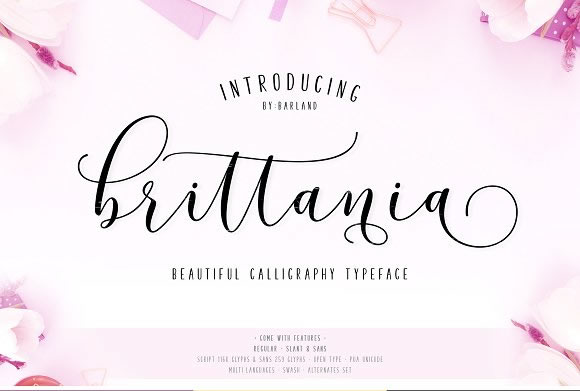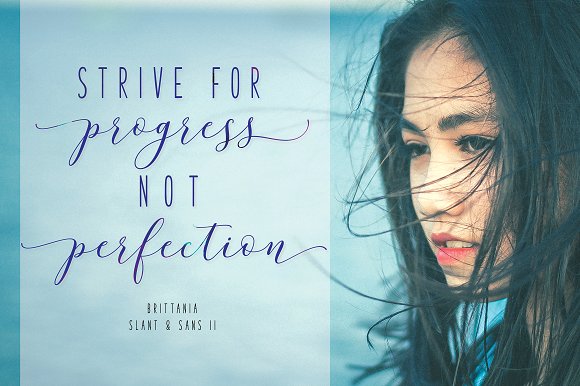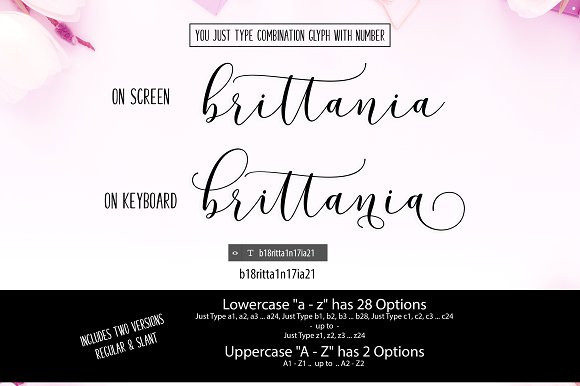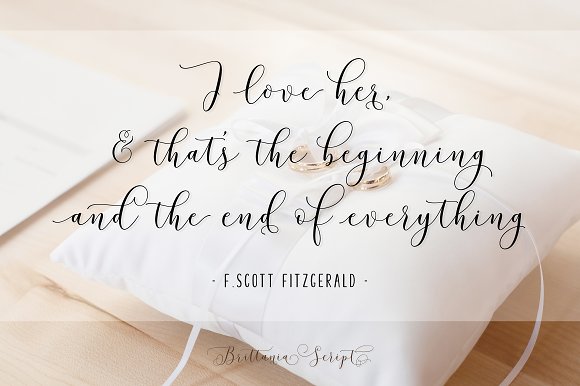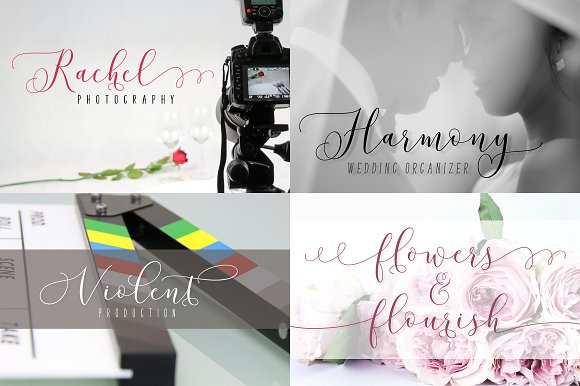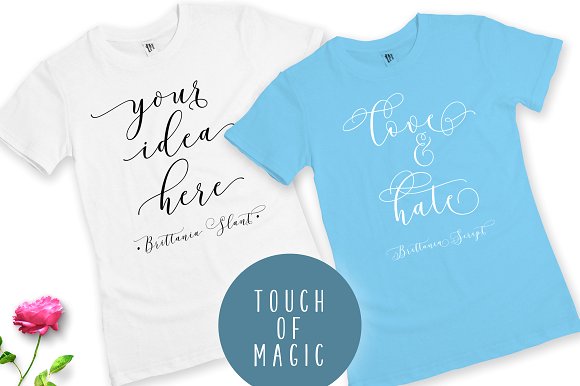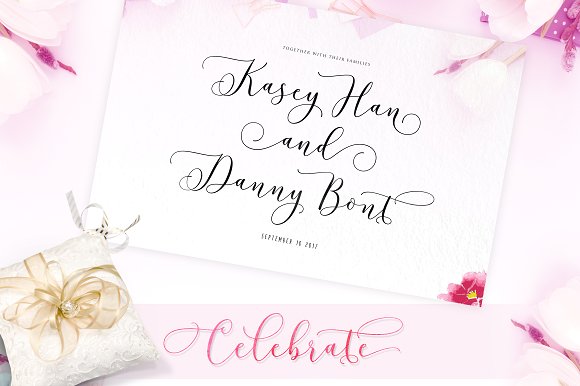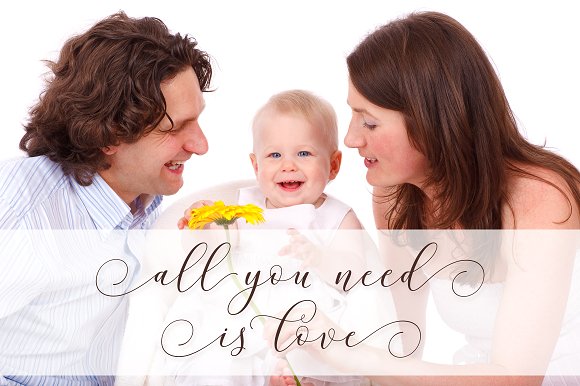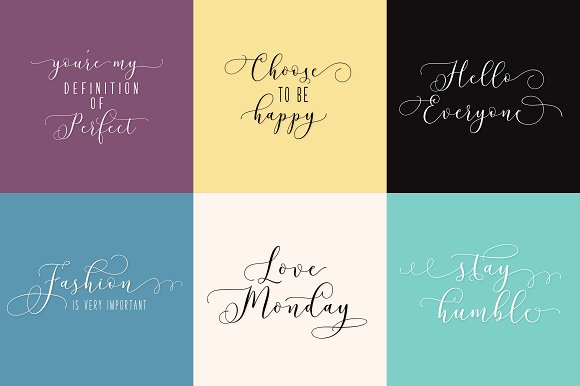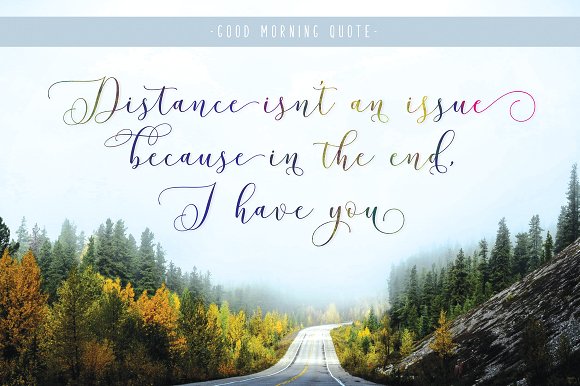
Brittania Font
About Brittania Font
Brittania is a elegant & modern calligraphy style font. Every letter has been hand-perfected to create a flowing type that looks great on many types of designs.